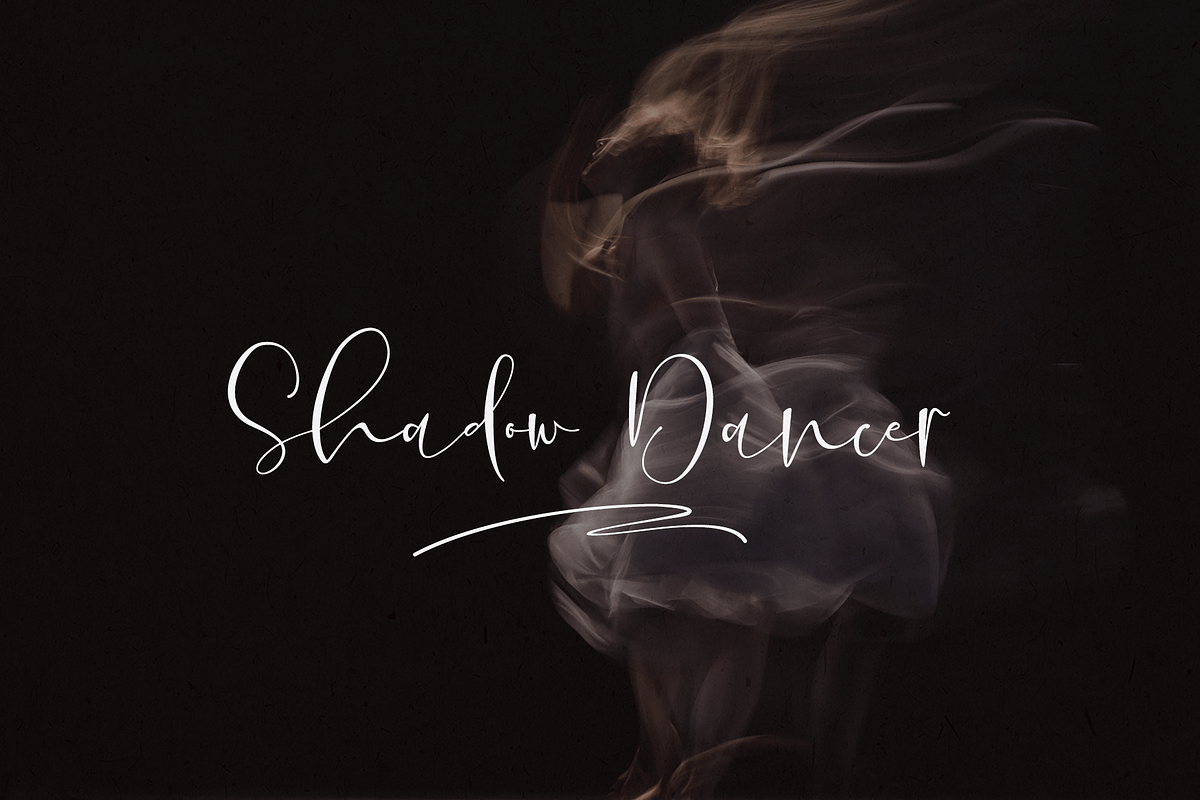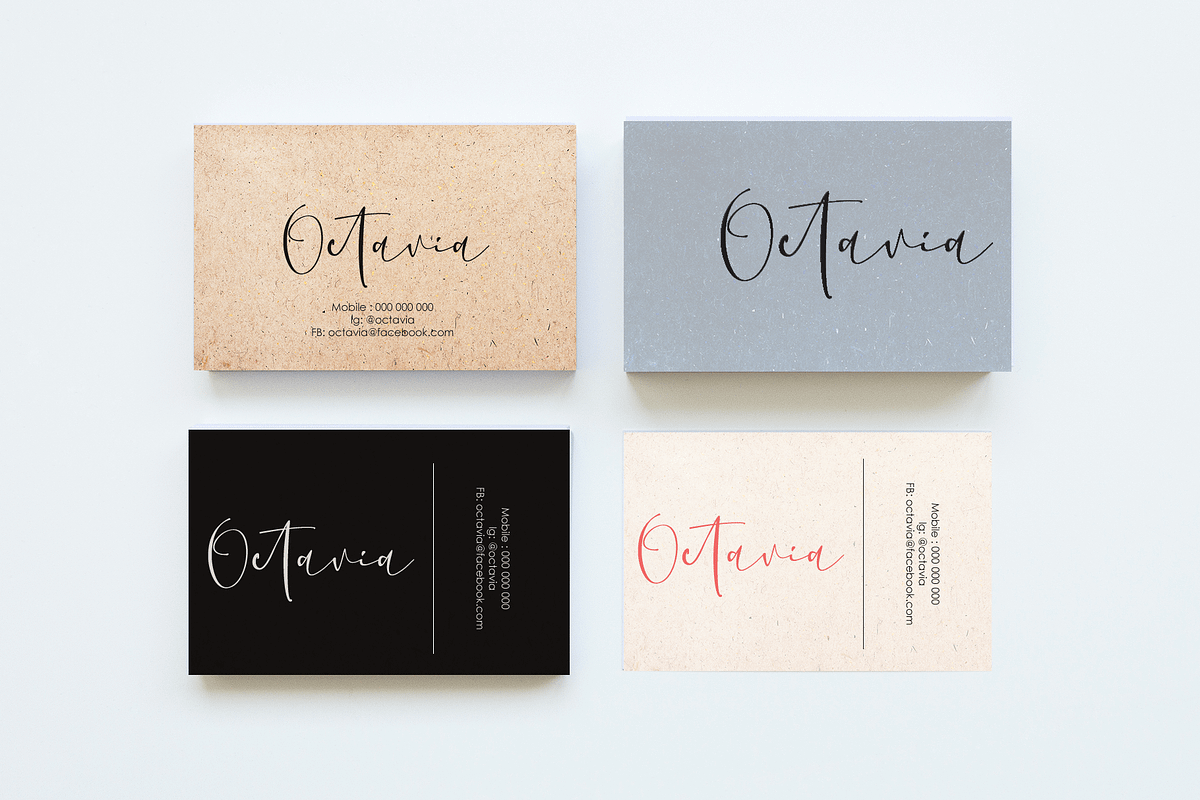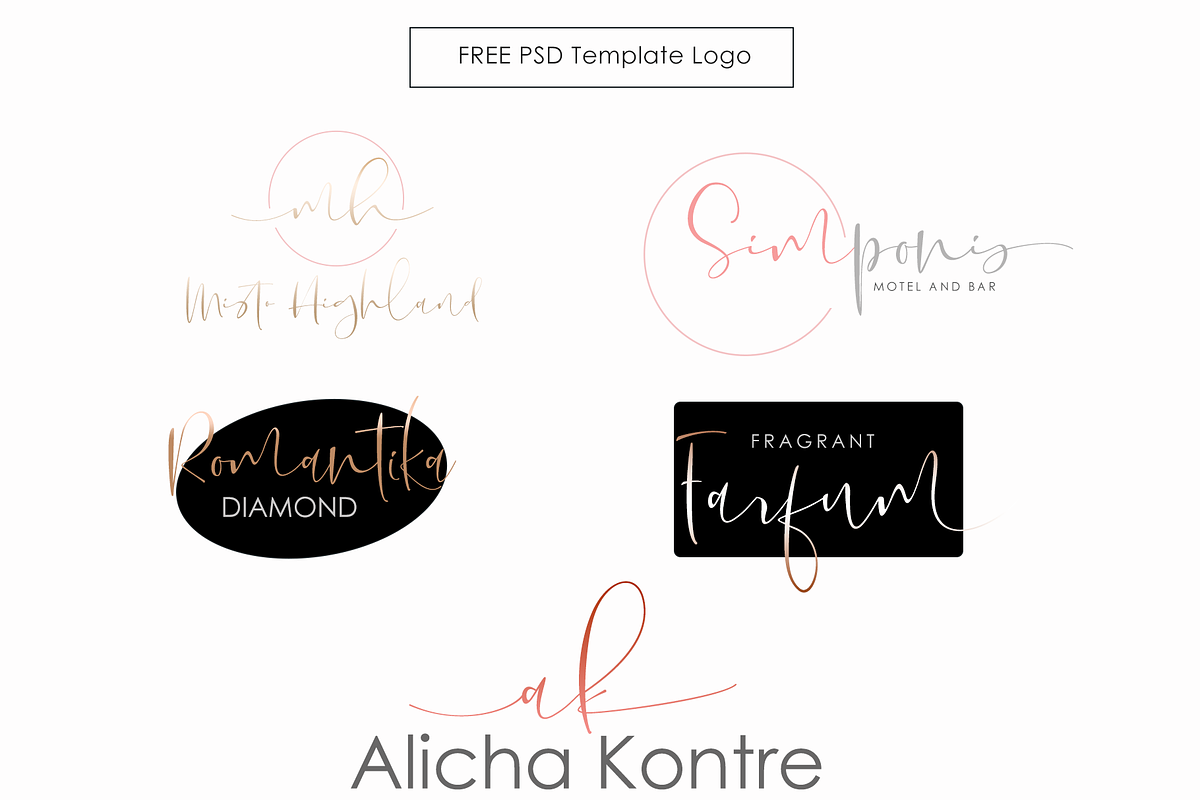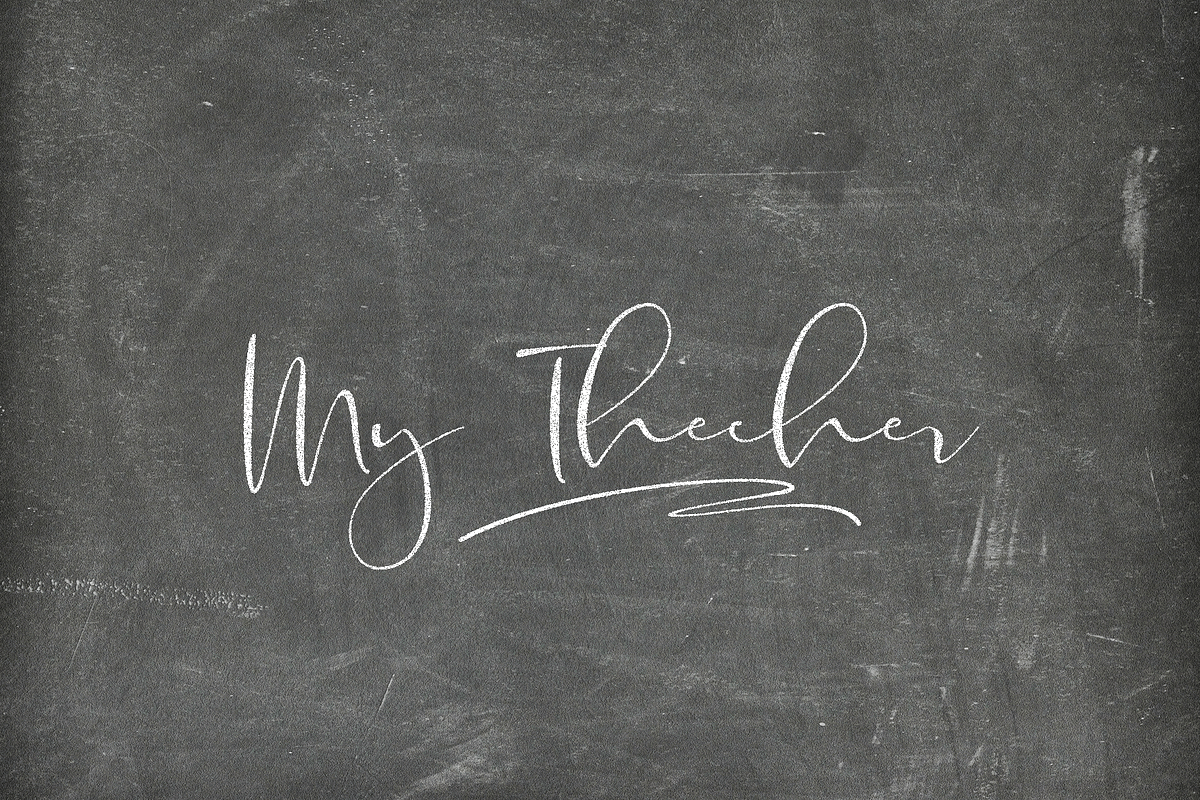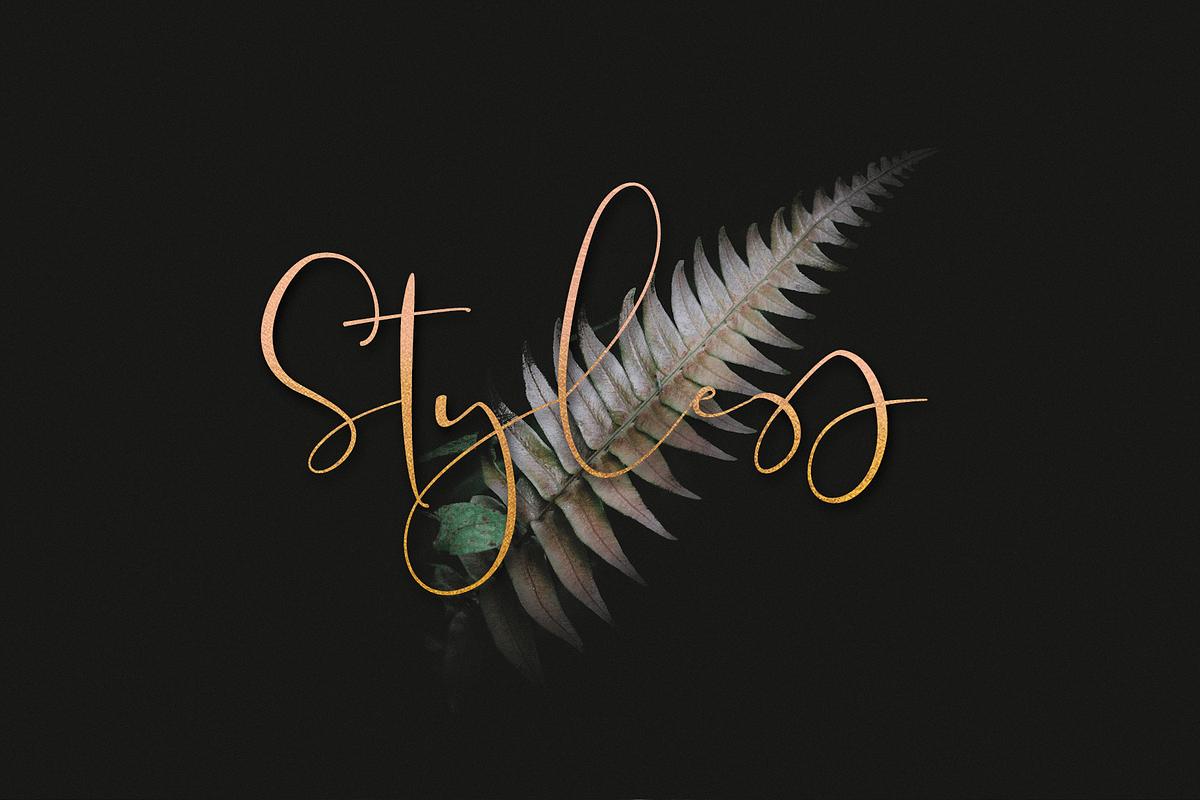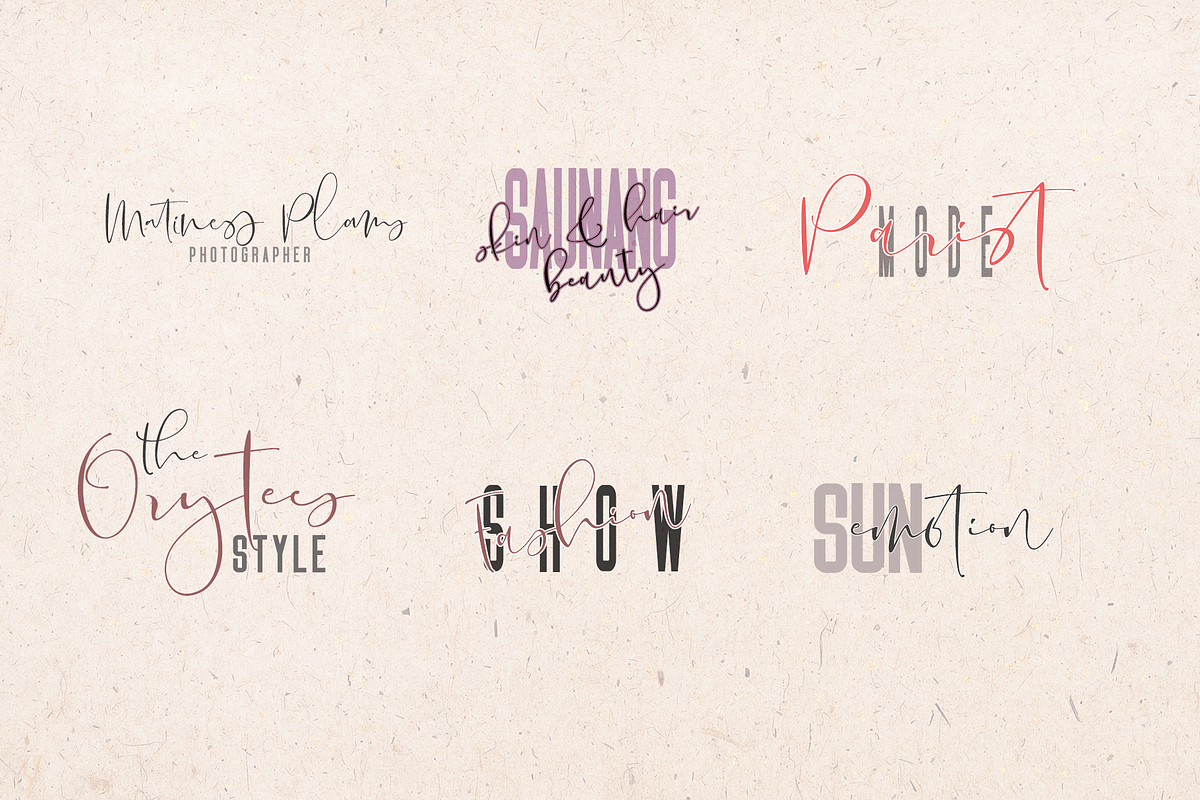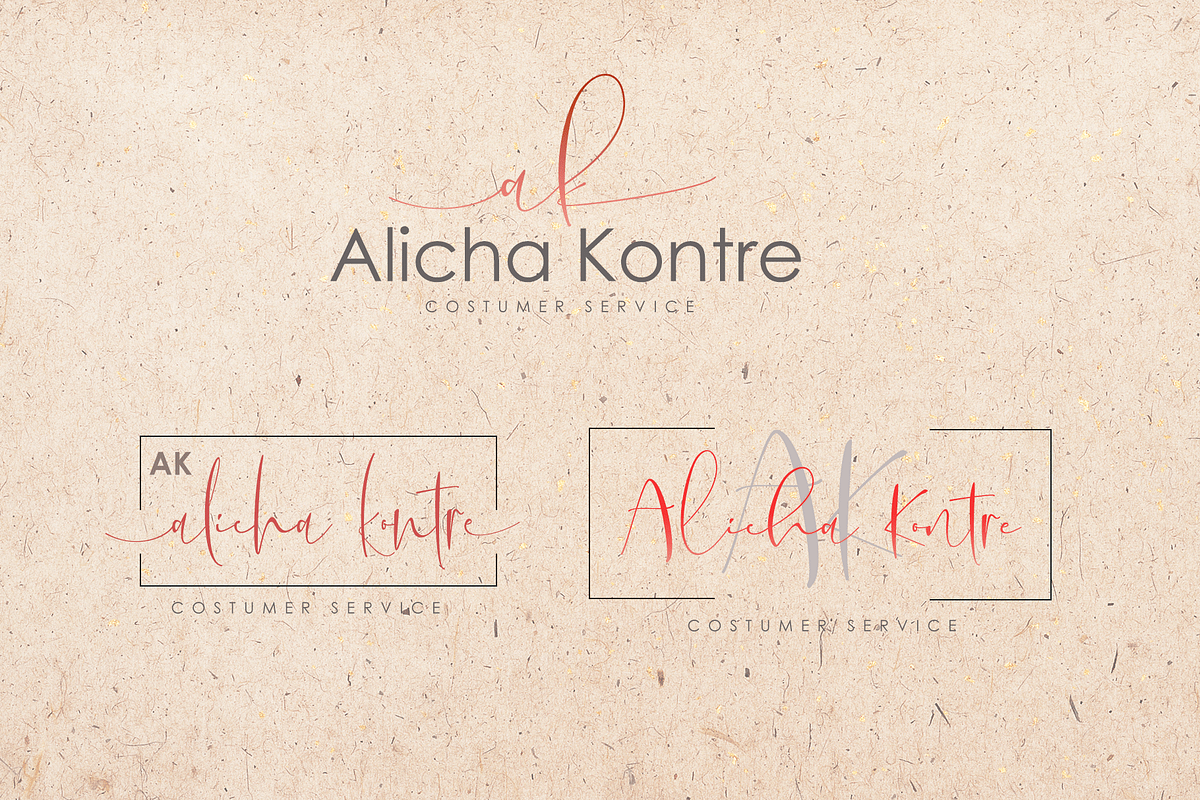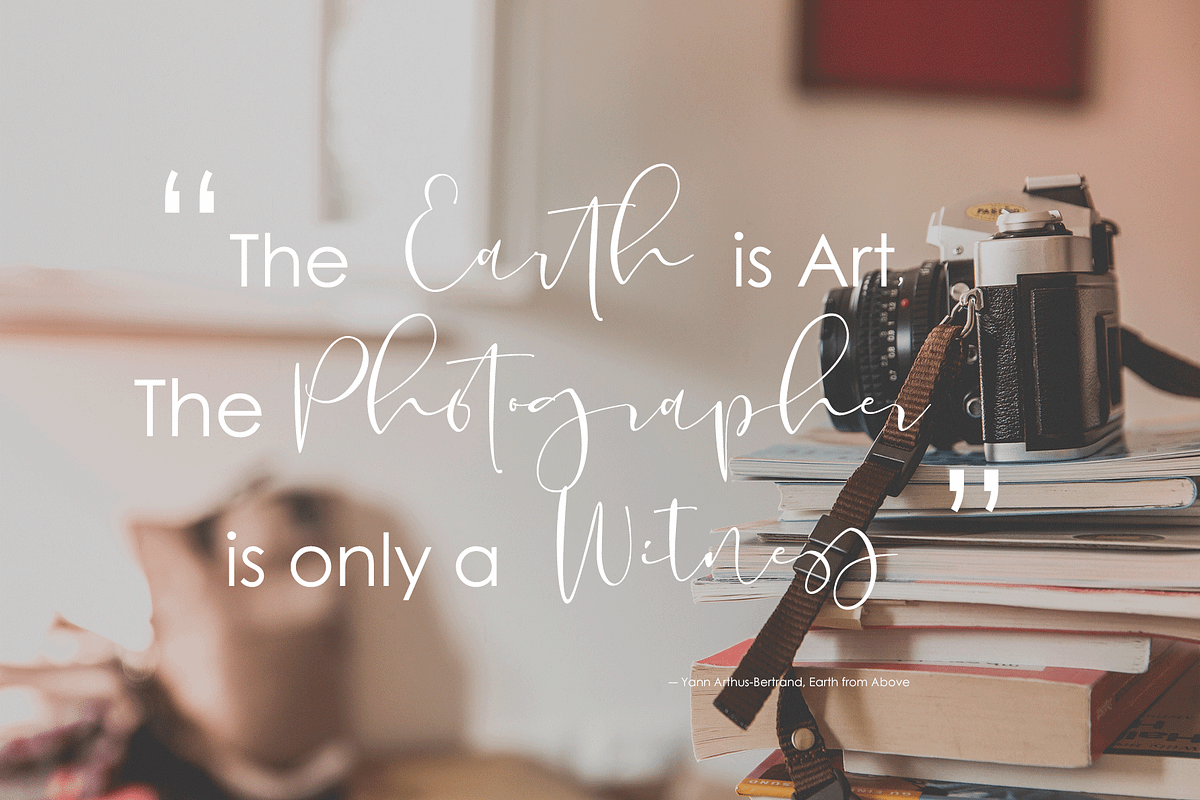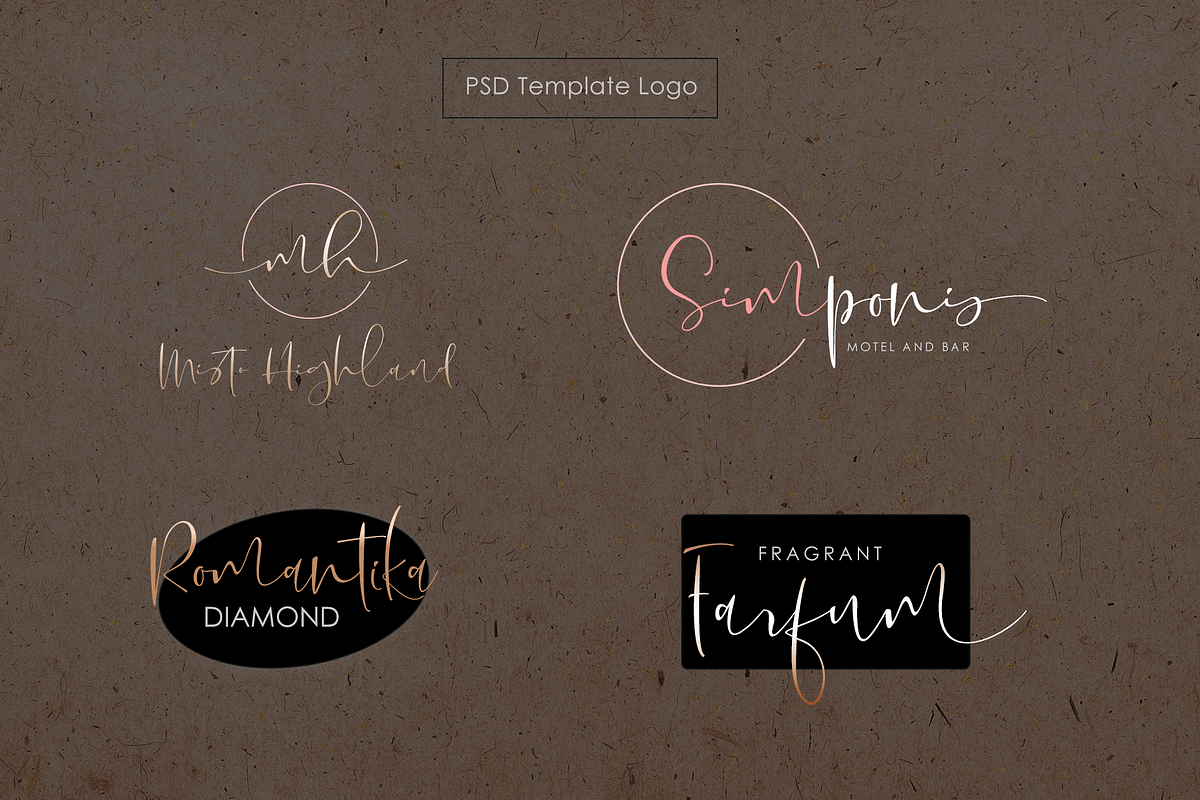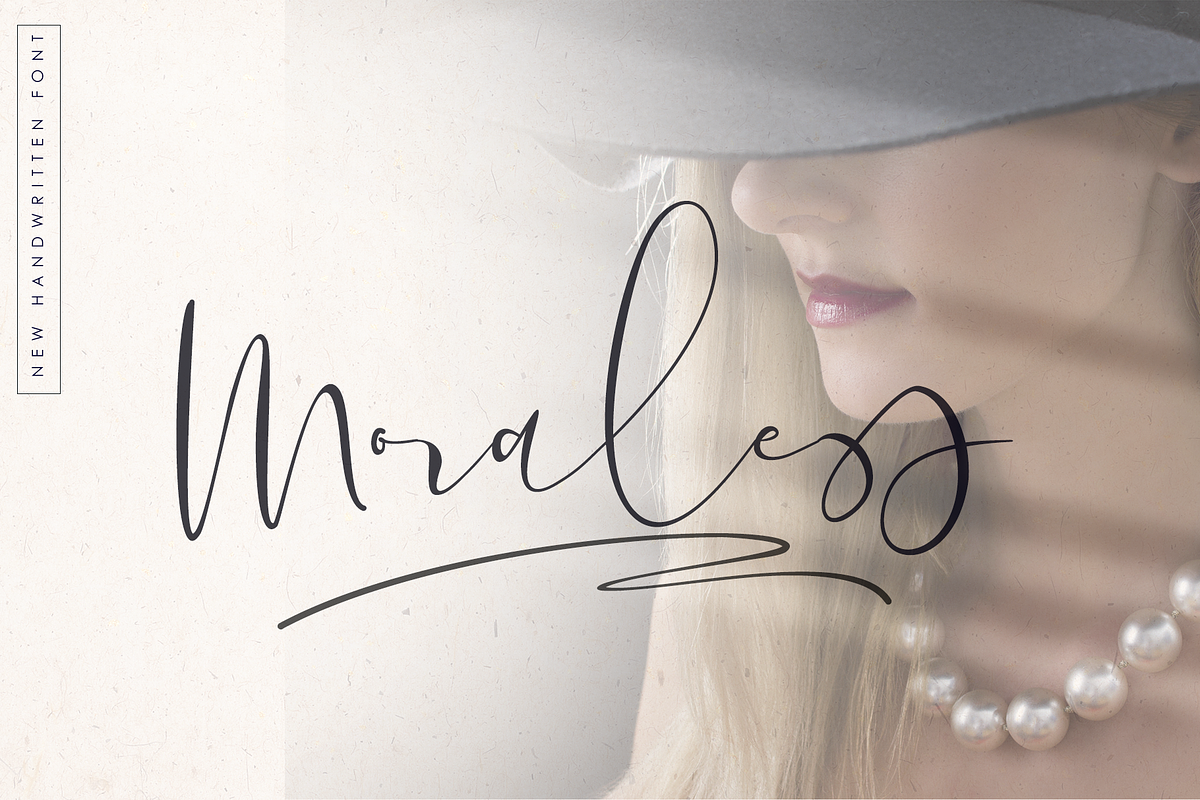
Moraless//Font Duo
Moraless Font Duo is a script font with typical handmade, a work that is purely a result of handmade, has a natural characteristic. This is perfect for invitations, signatures, blogs, social media, business cards, product brands.
Extra
Sans Font SILUTION
Moraless Font Duo has Stylistic standard, Stylistic Alternates and ligatures.